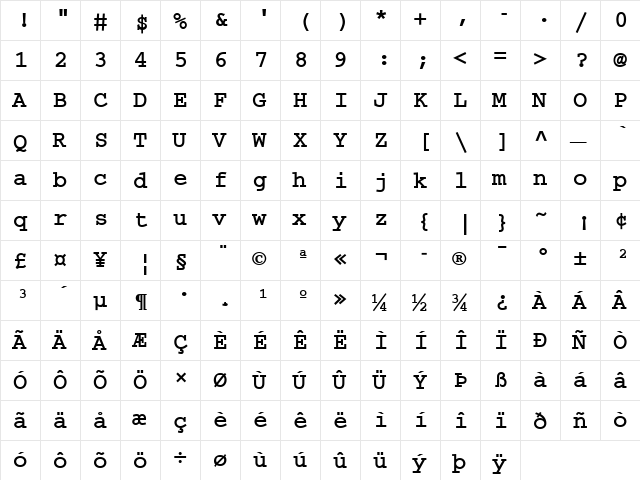
Ethiopic Yebse Regular
| Designer | abass alamnehe |
Design Context for Ethiopic Yebse Typeface
Ethiopic Yebse takes a measured approach to typography — its balanced proportions and neutral character make it a reliable workhorse for both digital and print work.